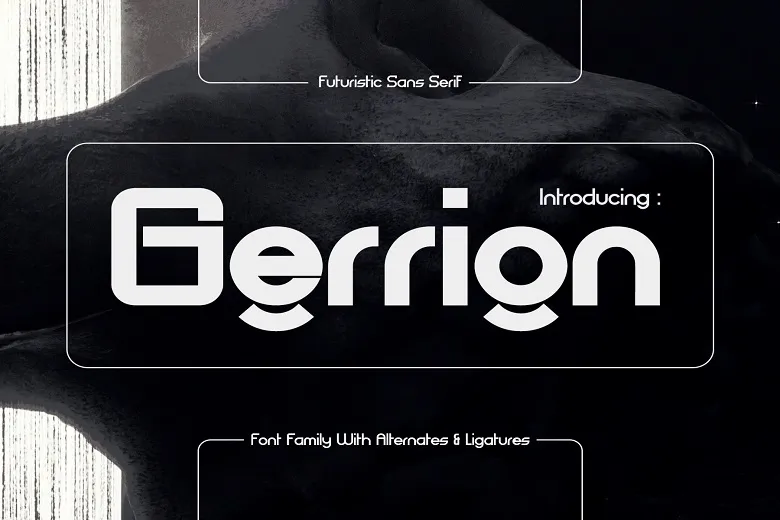
Gerrion Font Family
Gerrion is a modern futuristic sans serif typeface that gives off the vibe of the modern world. Gerrion comes in six styles including regular, italic, semibold, semibold italic, bold and bold italic which makes it very useful in design. Gerrion’s letters are very precise and stylized with the neat geometry of shapes. This emphasis on strong lines and fluid surfaces produces a clean and sophisticated look that is well matched with high tech components, new products, and progressive design concepts.